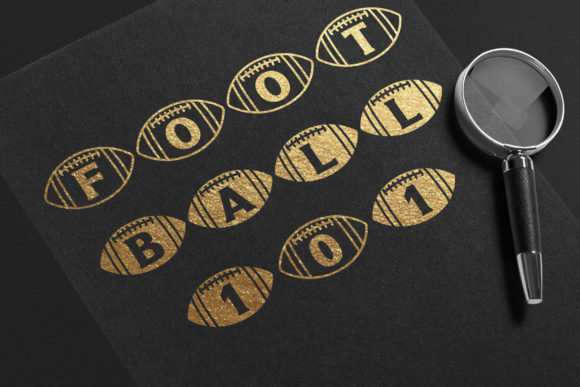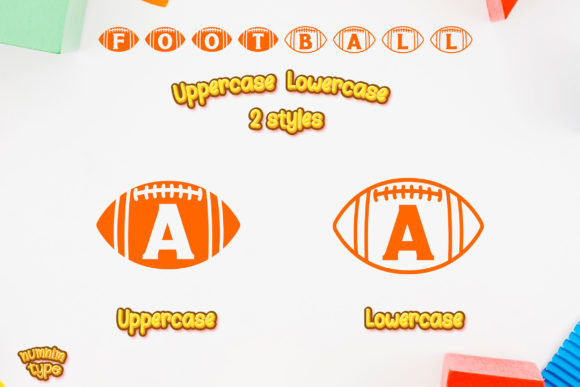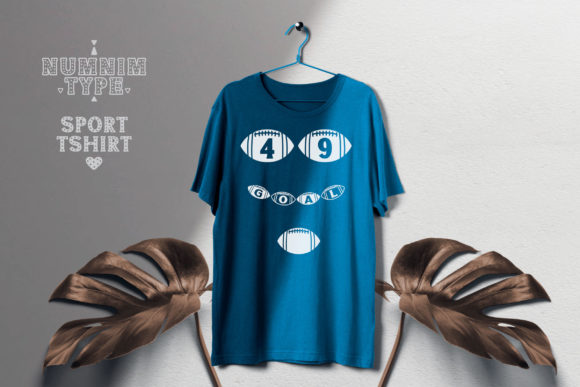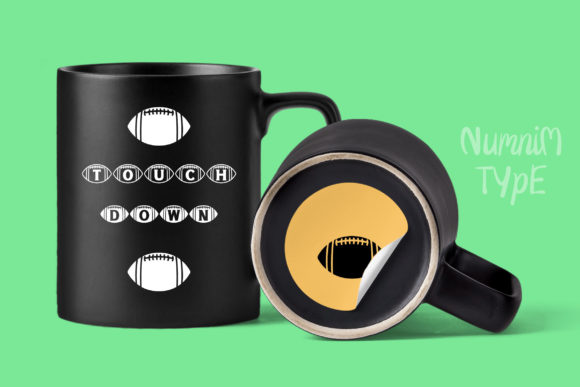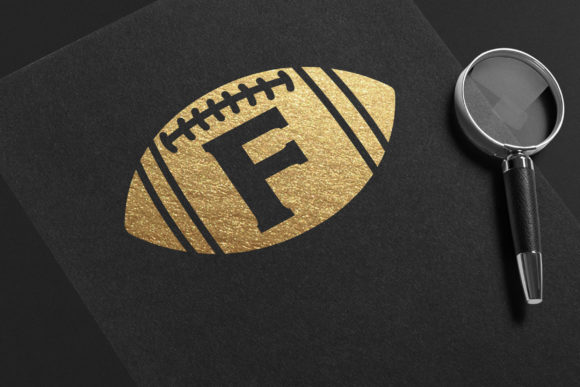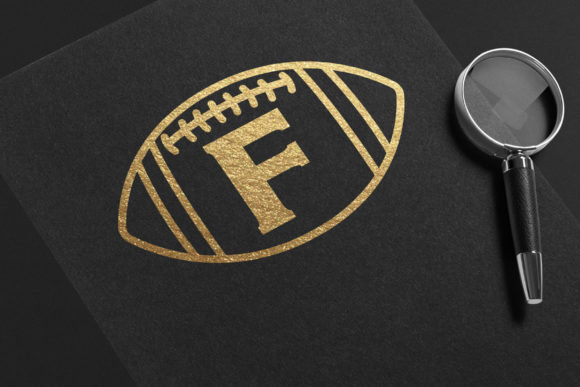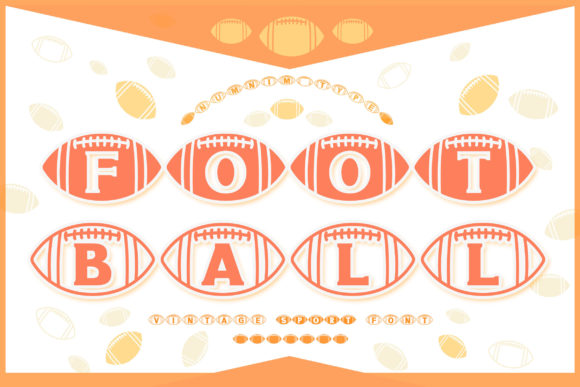
Introducing Football Font: The Ultimate Choice for Sports-Themed Designs
Are you a designer or crafter looking for a font that screams sports, energy, and excitement? Look no further than Football Font, a cool and bold decorative font that’s perfect for creating stunning sport-related designs. With its unique and eye-catching style, Football Font is sure to elevate your projects and leave a lasting impression on your audience.
What Makes Football Font So Special?
Football Font is a carefully crafted font that’s specifically designed to capture the spirit of sports, particularly football. Its bold and dynamic design makes it an ideal choice for creating eye-catching titles, headings, and slogans that are sure to grab attention. Whether you’re working on a project for a sports team, a fitness brand, or a sports apparel company, Football Font is the perfect choice.
Key Features of Football Font
- Cool and Bold Design: Football Font boasts a unique and stylish design that’s sure to make your projects stand out.
- Sporty Style: The font’s sporty style is perfect for creating designs that are related to sports, fitness, and recreation.
- Highly Versatile: Football Font can be used for a wide range of projects, from posters and flyers to logos and branding materials.
- Easily Customizable: The font is highly customizable, allowing you to adjust the size, color, and style to suit your project’s needs.
How to Use Football Font in Your Projects
Using Football Font in your projects is easy and straightforward. Here are a few tips to get you started:
- Pair it with Other Fonts: Football Font pairs well with other fonts, so feel free to experiment with different combinations to create a unique look.
- Use it for Headings and Titles: Football Font is perfect for creating eye-catching headings and titles that are sure to grab attention.
- Add it to Your Brand Identity: If you’re creating a brand identity for a sports-related business, Football Font is a great choice for logos, slogans, and other branding materials.
Why Designers and Crafters Love Football Font
Football Font has quickly become a favorite among designers and crafters, and for good reason. Here are a few reasons why:
- Unique Style: Football Font’s unique style sets it apart from other fonts, making it a great choice for designers who want to create something truly original.
- Ease of Use: The font is easy to use and customize, making it a great choice for crafters who are new to design.
- High-Quality Design: Football Font is a high-quality font that’s designed to deliver exceptional results, making it a great choice for designers who want to create professional-looking projects.
In conclusion, Football Font is a cool and bold decorative font that’s perfect for creating sport-related designs. Its unique style, versatility, and ease of use make it a great choice for designers and crafters who want to create stunning projects that are sure to impress. So why wait? Add Football Font to your projects today and experience the results for yourself!
Get Ready to Score Big with Football Font!
Don’t miss out on the opportunity to elevate your designs with Football Font. With its bold and dynamic design, this font is sure to be a game-changer for your projects. So go ahead, give it a try, and see the difference for yourself!